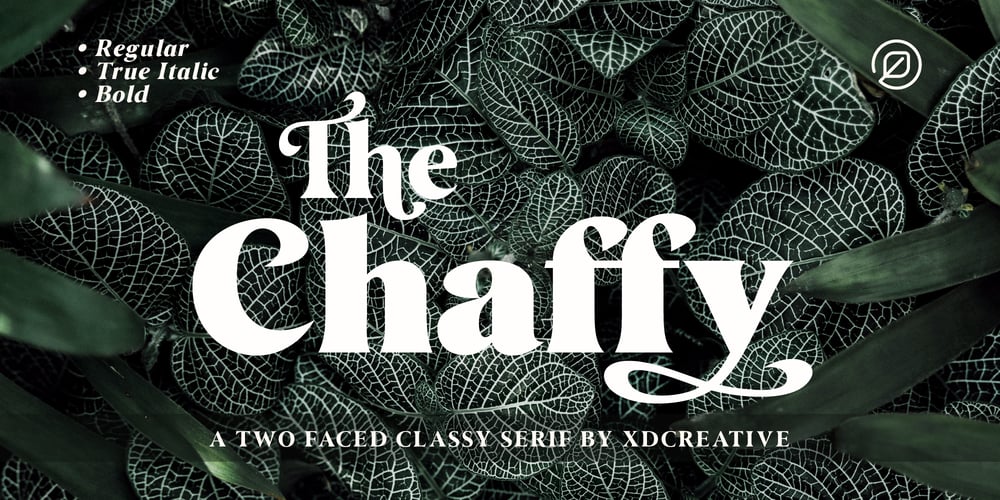
The Chaffy
The Chaffy font
The Chaffy Font Family was designed by Faldy Kudo and published by XdCreative. The Chaffy contains 4 styles and family package options. About The ChaffyThe creation of the chaffy is inspired by classic and vintage fonts, with a touch of Slightly calligraphic, with variable stress angle and high contrast.The Chaffy is a display font type, so it is perfectly suited for graphic design and any display use ( for the logos, t-shirts, the web as well as for print, and also great for headings),The Chaffy is perfect pairing for Giane Gothic sans or Giane SerifThank You_xdCreative